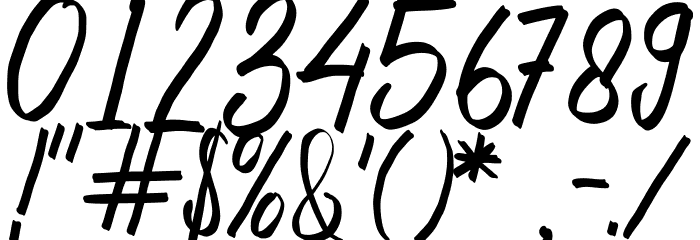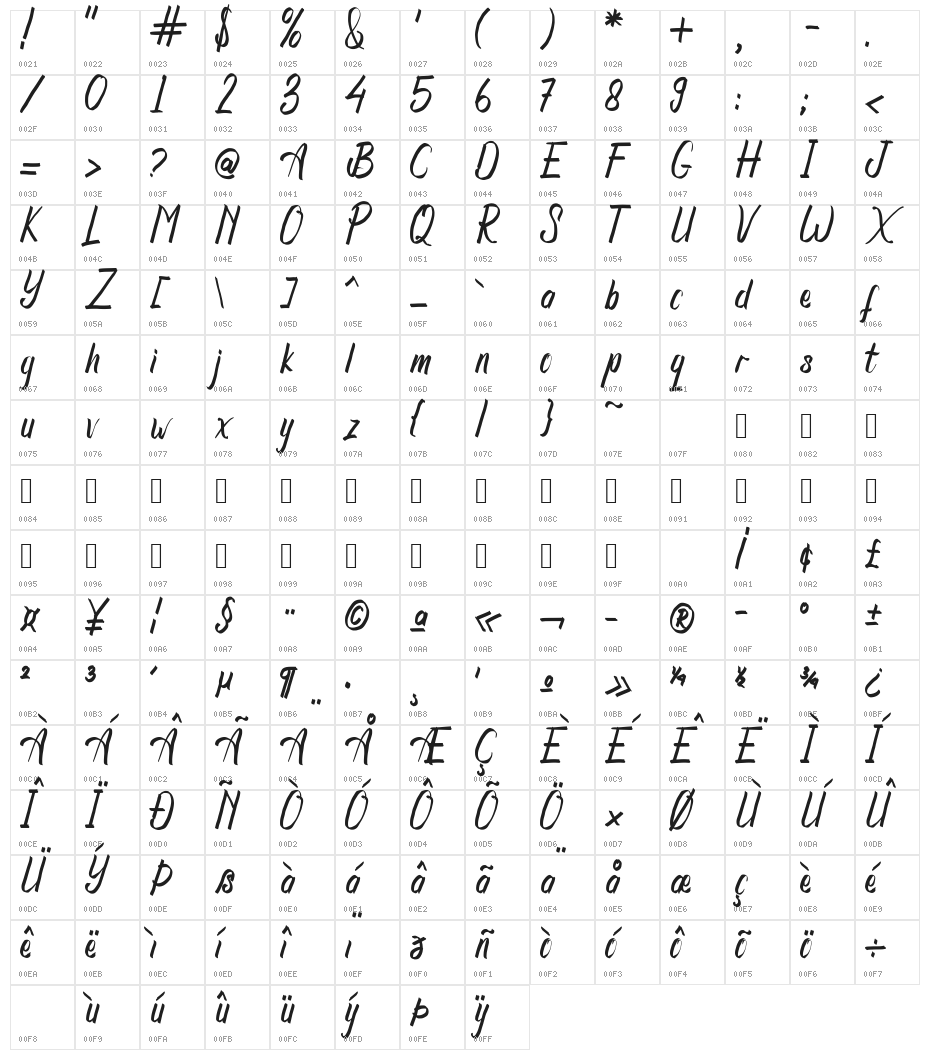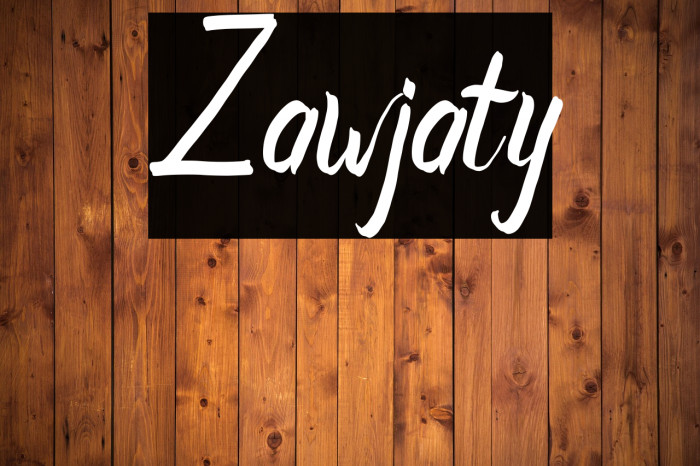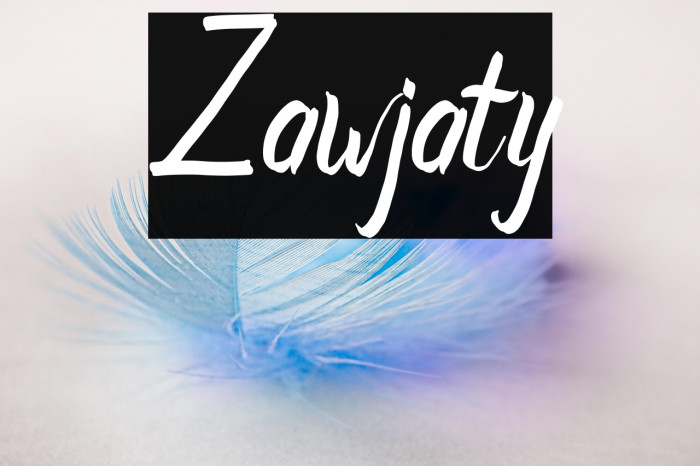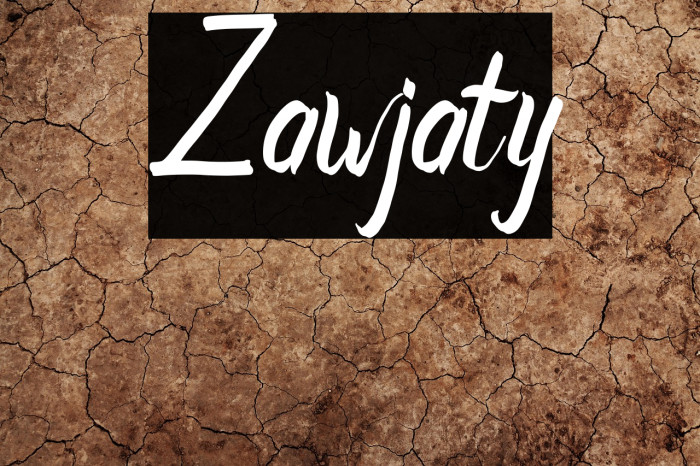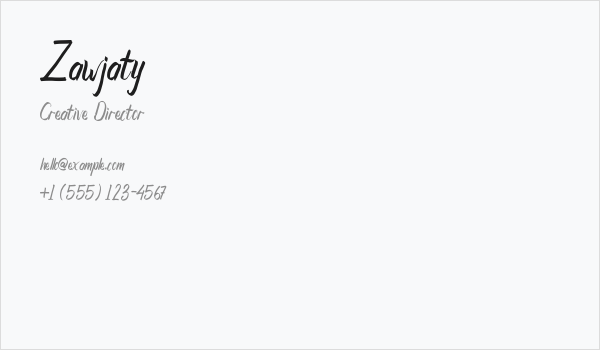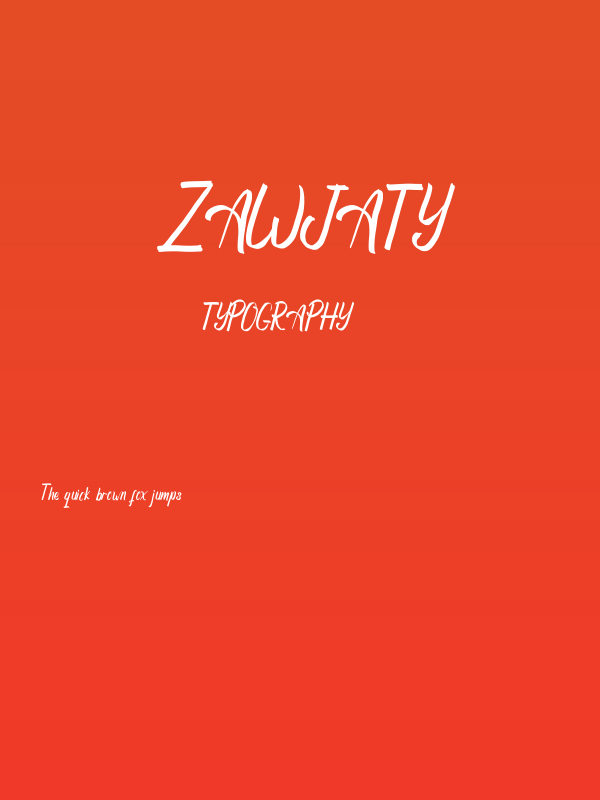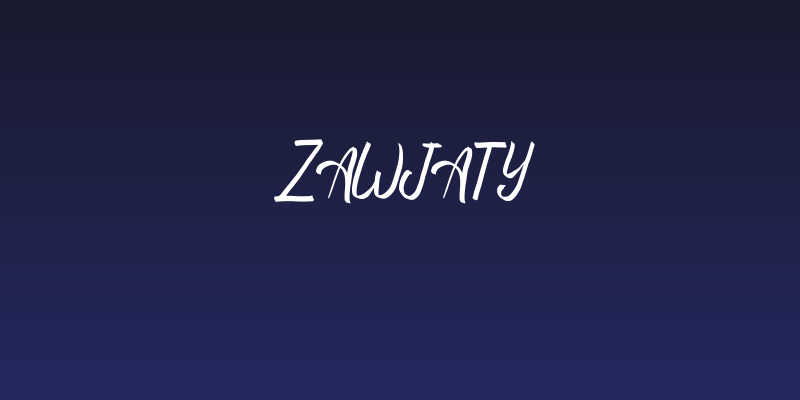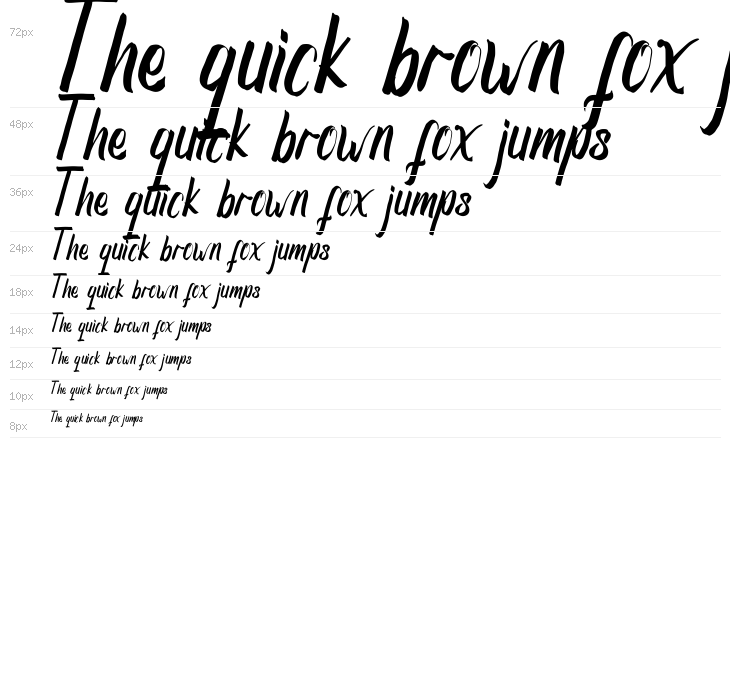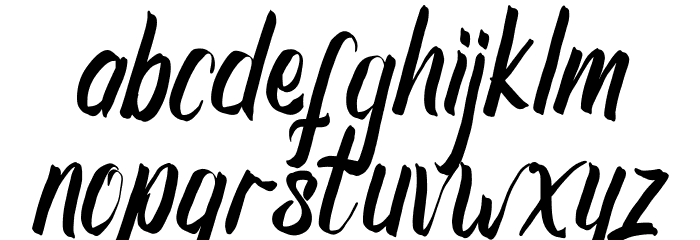
Zawjaty Font
Zawjaty Description
This font features a dynamic and expressive handwritten style, characterized by its fluid and slightly slanted letterforms. The uppercase letters are bold and prominent, while the lowercase letters maintain a consistent flow with a slightly narrower form. The numerals are distinct and maintain the same energetic style as the letters. Special characters are creatively integrated, maintaining the overall aesthetic. The strokes vary in thickness, adding a lively and personal touch. This font is ideal for projects that require a personal and informal feel, such as invitations, greeting cards, or creative branding.
| Proposed Projects | Ideal for invitations, greeting cards, creative branding, and personal projects. |